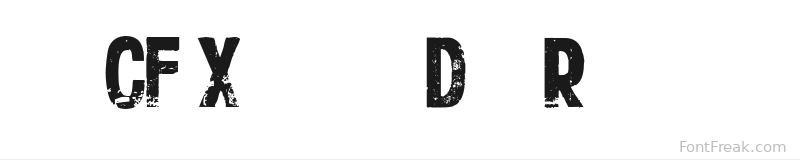
CF Xerography Demo Regular
About CF Xerography Demo Regular
CF Xerography Demo Regular by Cloutierfontes is a distinctive display font that captures the essence of vintage print styles with a modern twist. This unique typeface showcases a distressed appearance, reminiscent of old photocopies and typewritten documents, making it an excellent choice for projects that require a touch of nostalgia. The strokes exhibit varying weights, contributing to a bold yet textured look that stands out in any design context. The spacing is deliberately loose, enhancing readability while allowing the font's character to shine through.
This font is ideal for a variety of creative applications. It works wonderfully for retro-themed wedding invitations, where its unique style can evoke the charm of yesteryears. Additionally, CF Xerography Demo Regular is perfect for movie posters that seek to convey a gritty, underground vibe, appealing to independent filmmakers. Restaurant menus can also benefit from its eye-catching aesthetics, drawing diners in with a sense of authenticity and personality. Moreover, content creators looking to add flair to their blogs or social media graphics will find this font a compelling choice to grab attention.